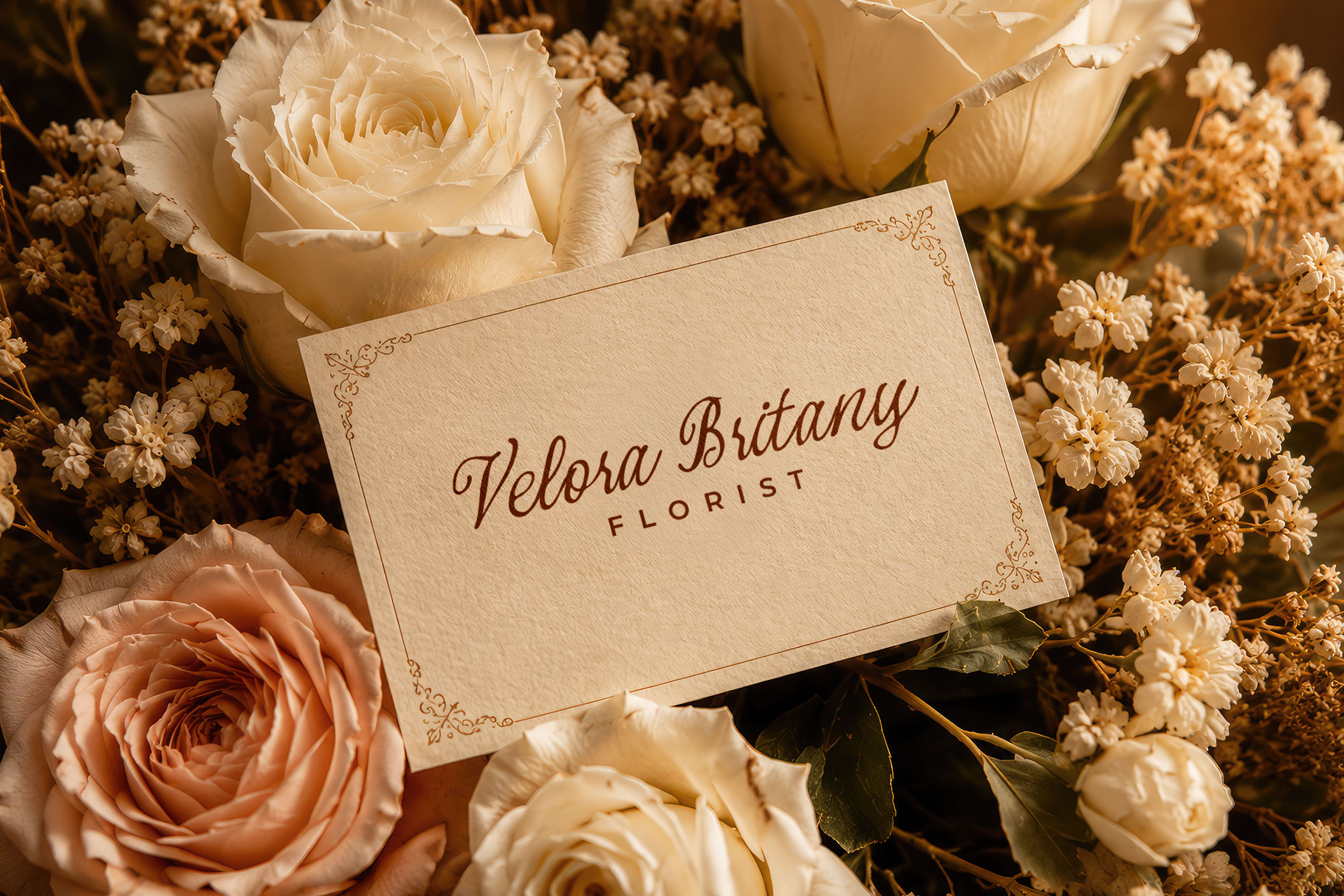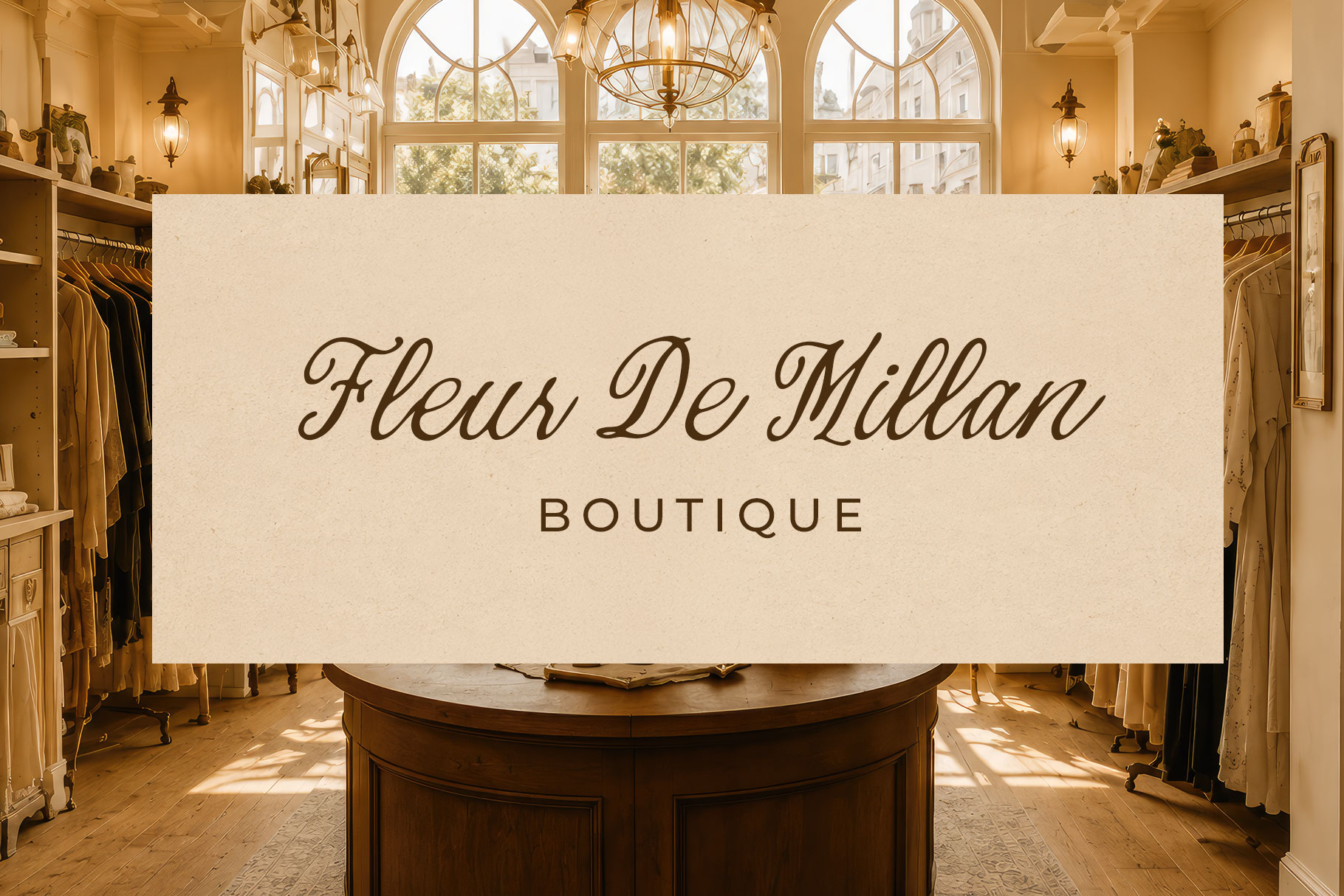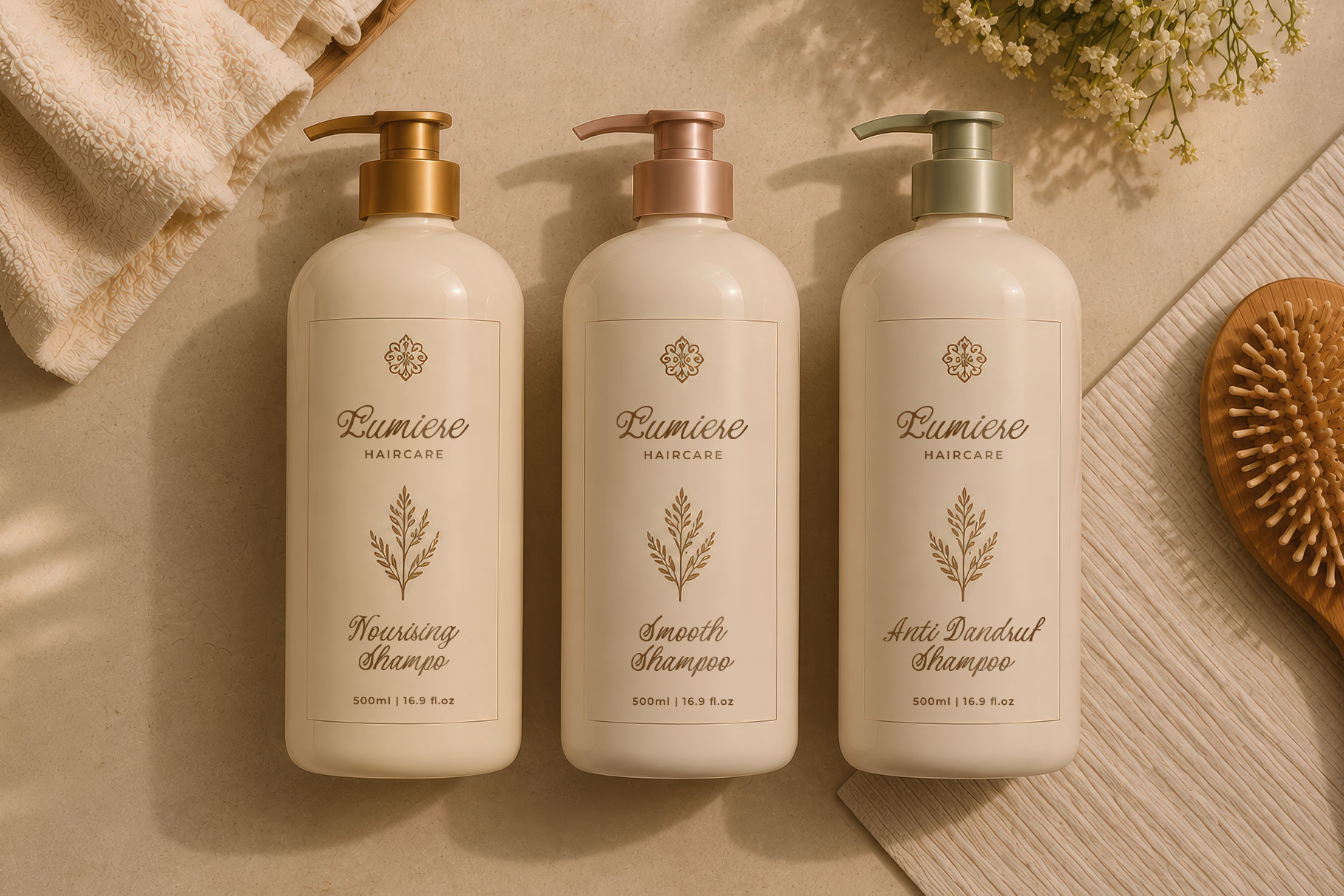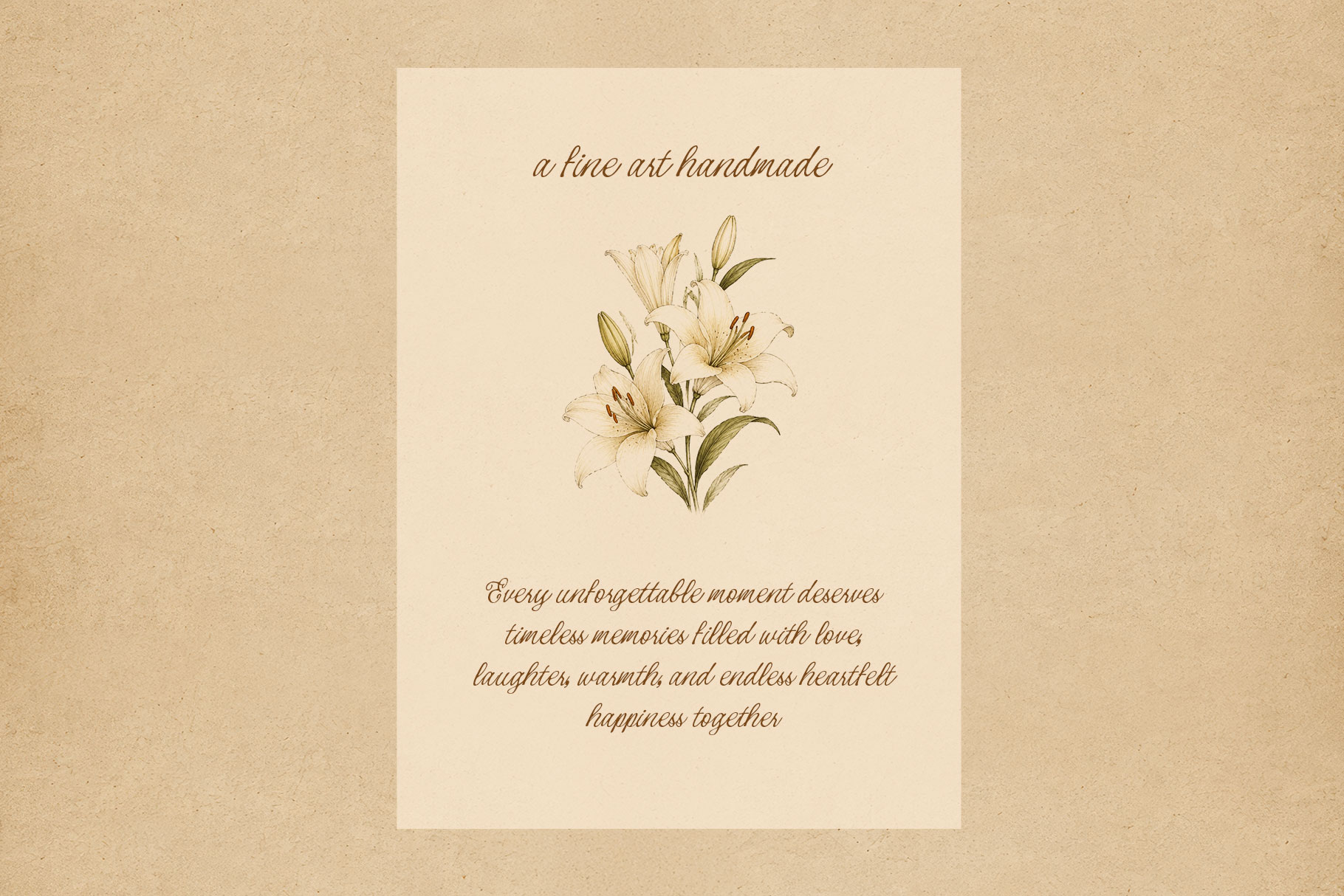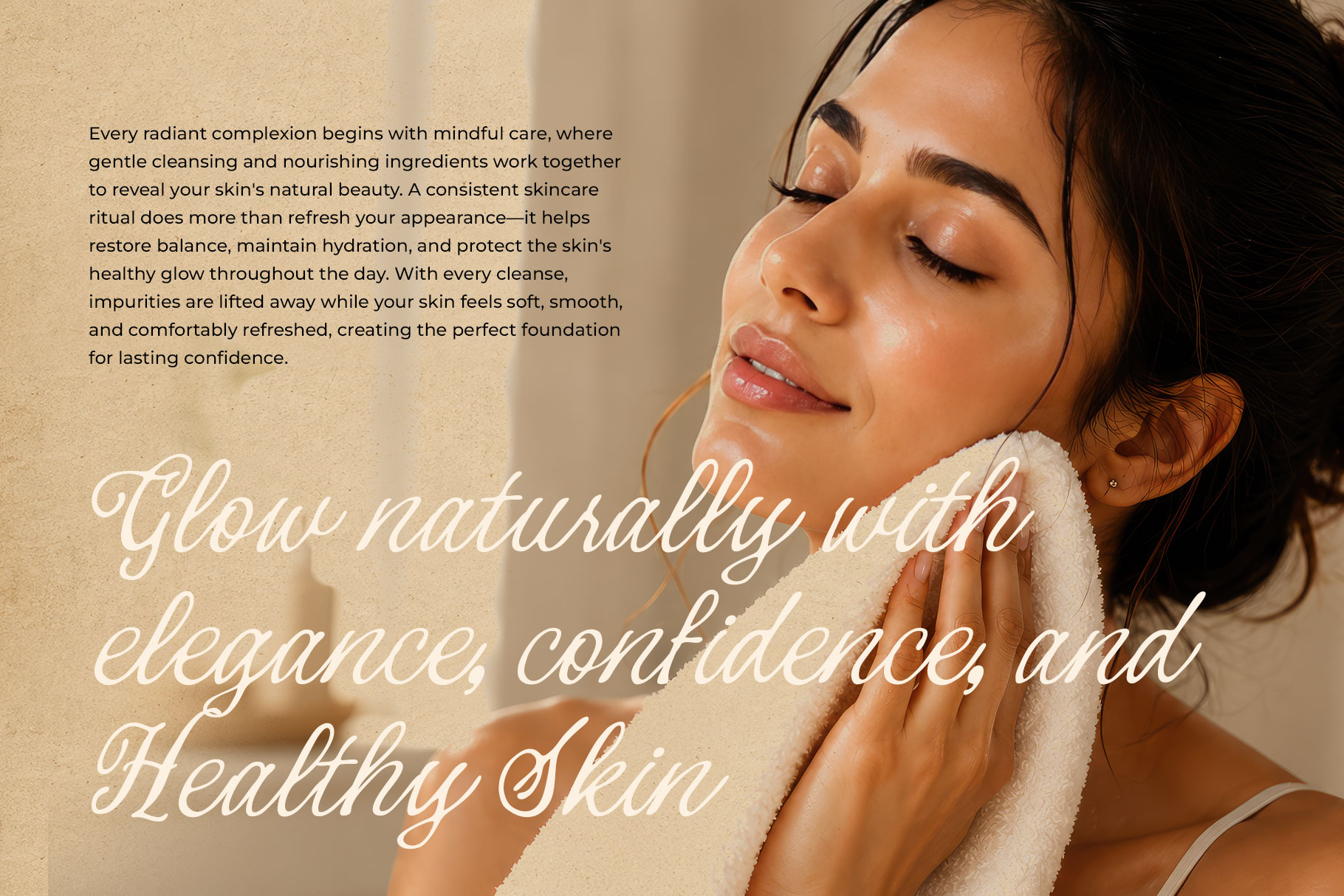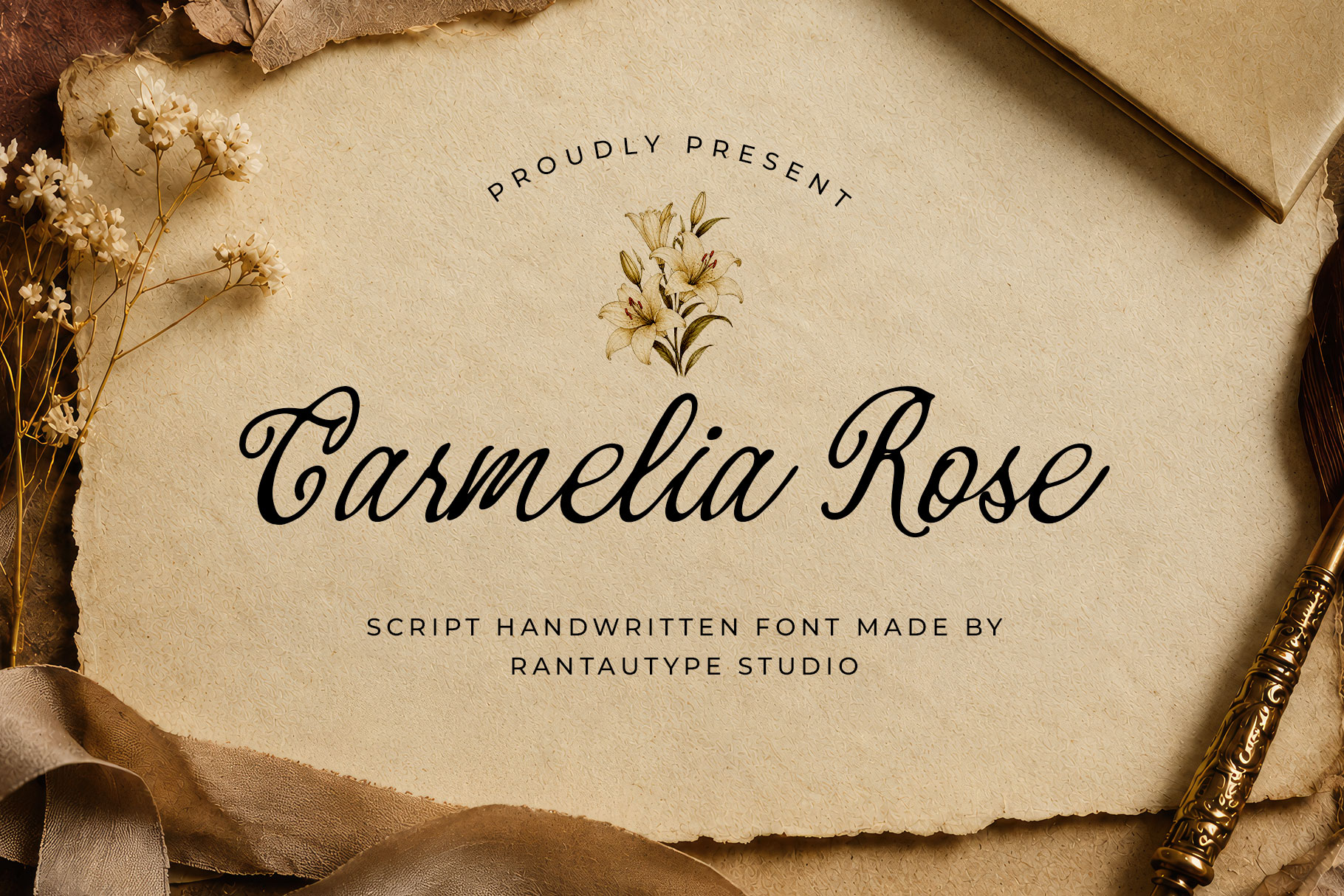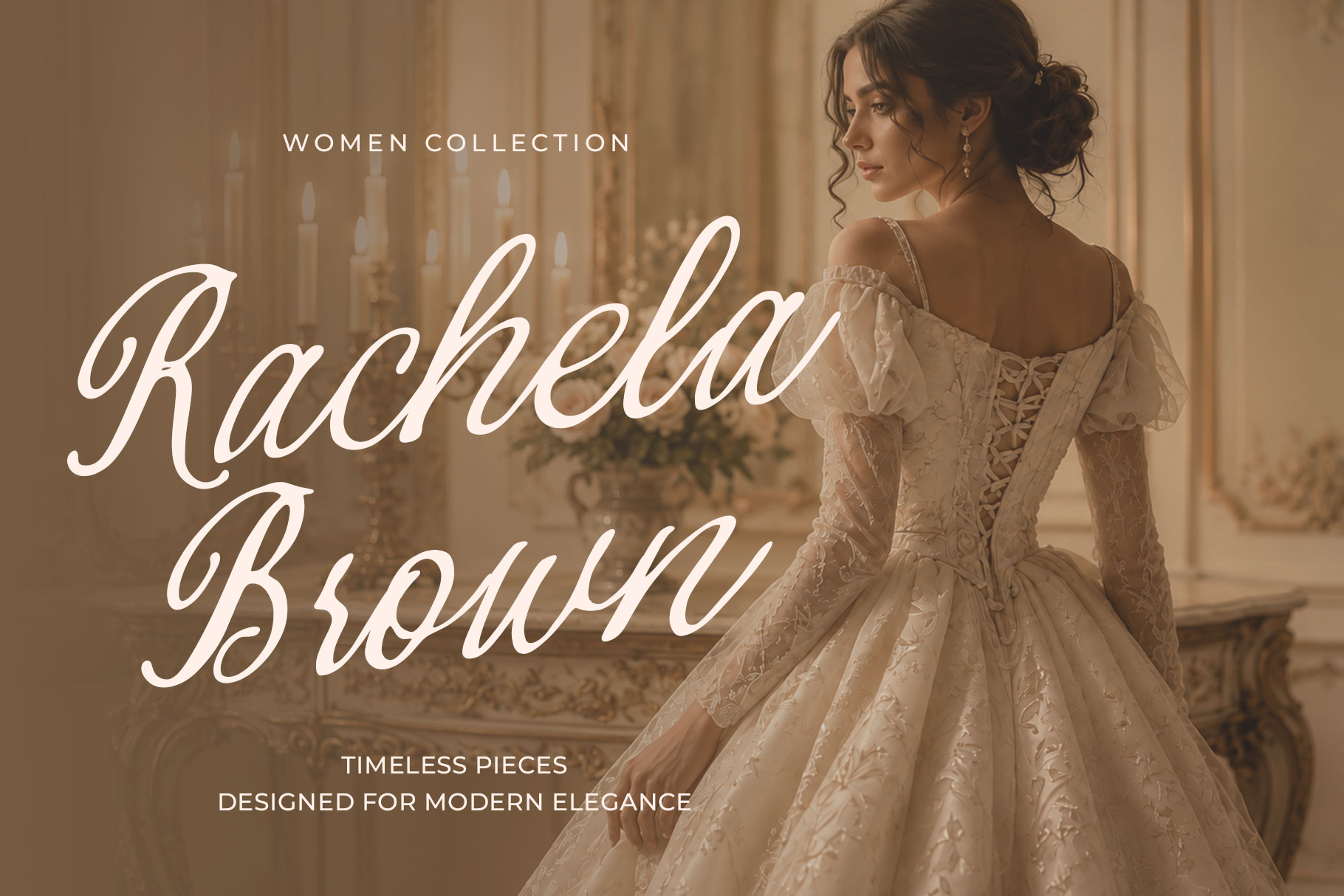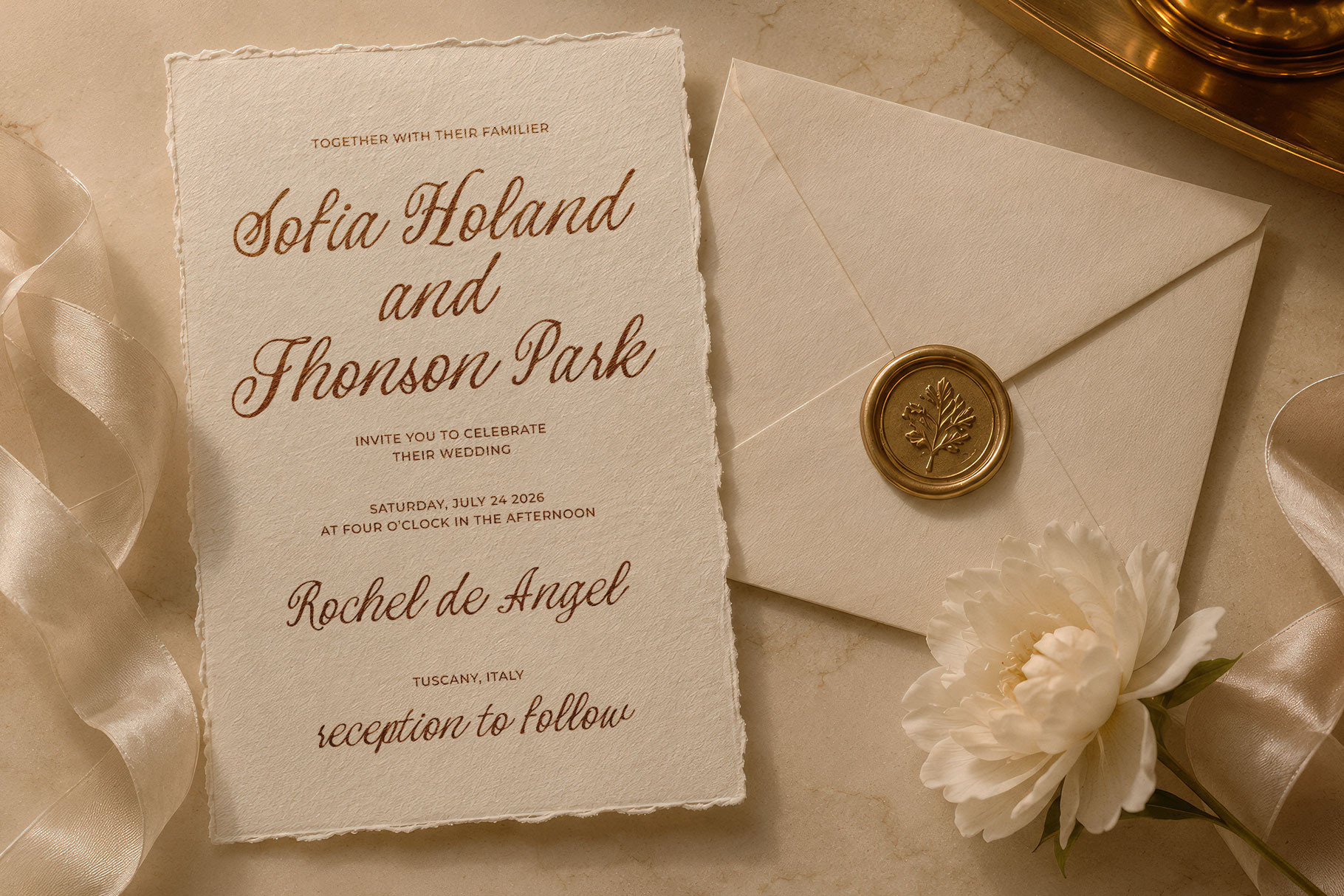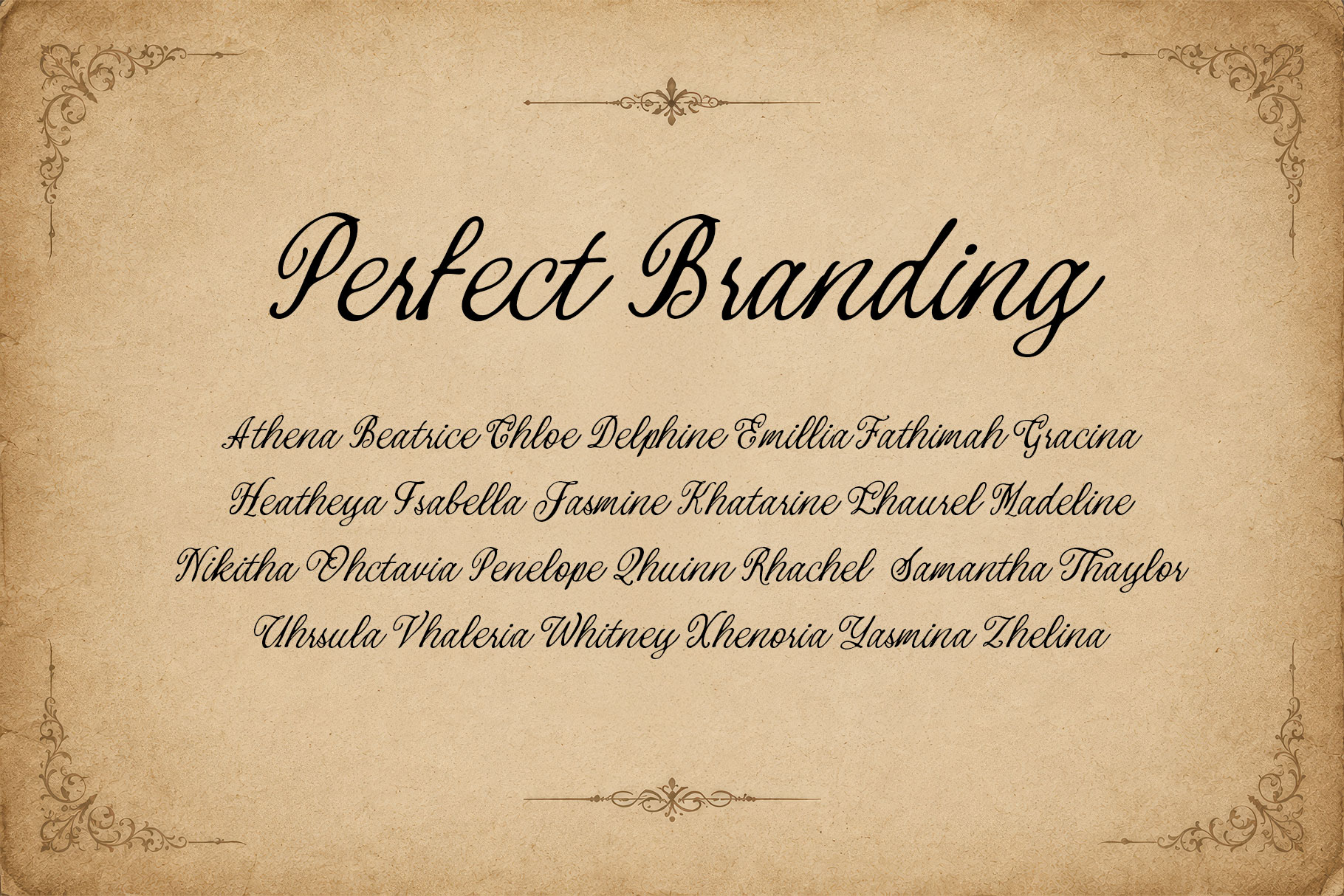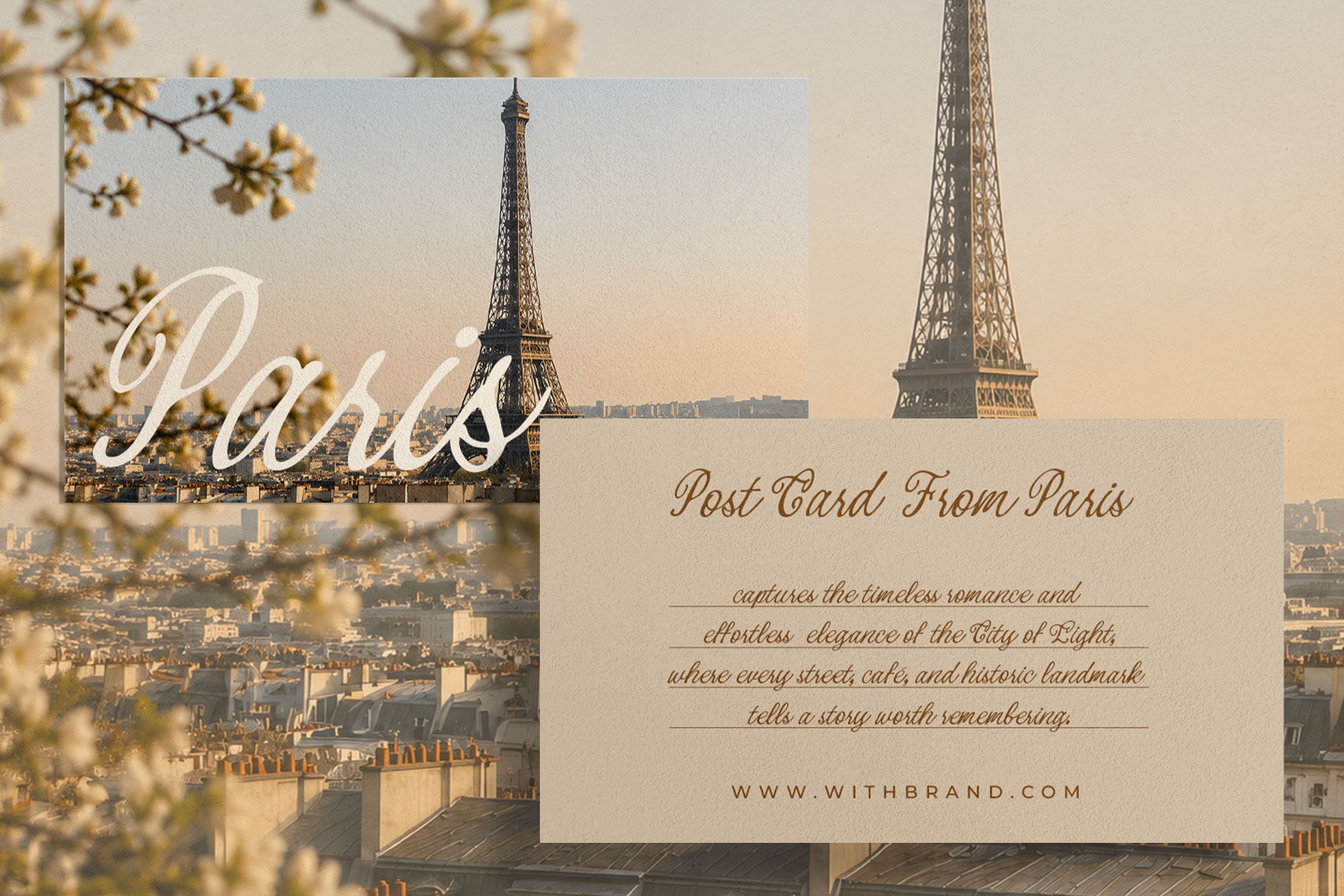
Carmelia Rose is a graceful script font inspired by the timeless beauty of antique manuscripts, vintage correspondence, and handwritten notes preserved through generations. Carmelia Rose brings an unmistakable sense of nostalgia while maintaining the versatility required for modern design projects. Its graceful letterforms evoke the romance of centuries past, making every word feel personal, luxurious, and full of character.
Carmelia Rose is a perfectly choice for any creative endeavor, creating, modern, lifestyle design such as logotype, title, cover, branding, invitations, wedding designs, display and magazine, social media posts, advertisements, printed quotes, product packaging, corporate brand, product designs, labels, photography, watermarks, special events and any other project with elegant touch.